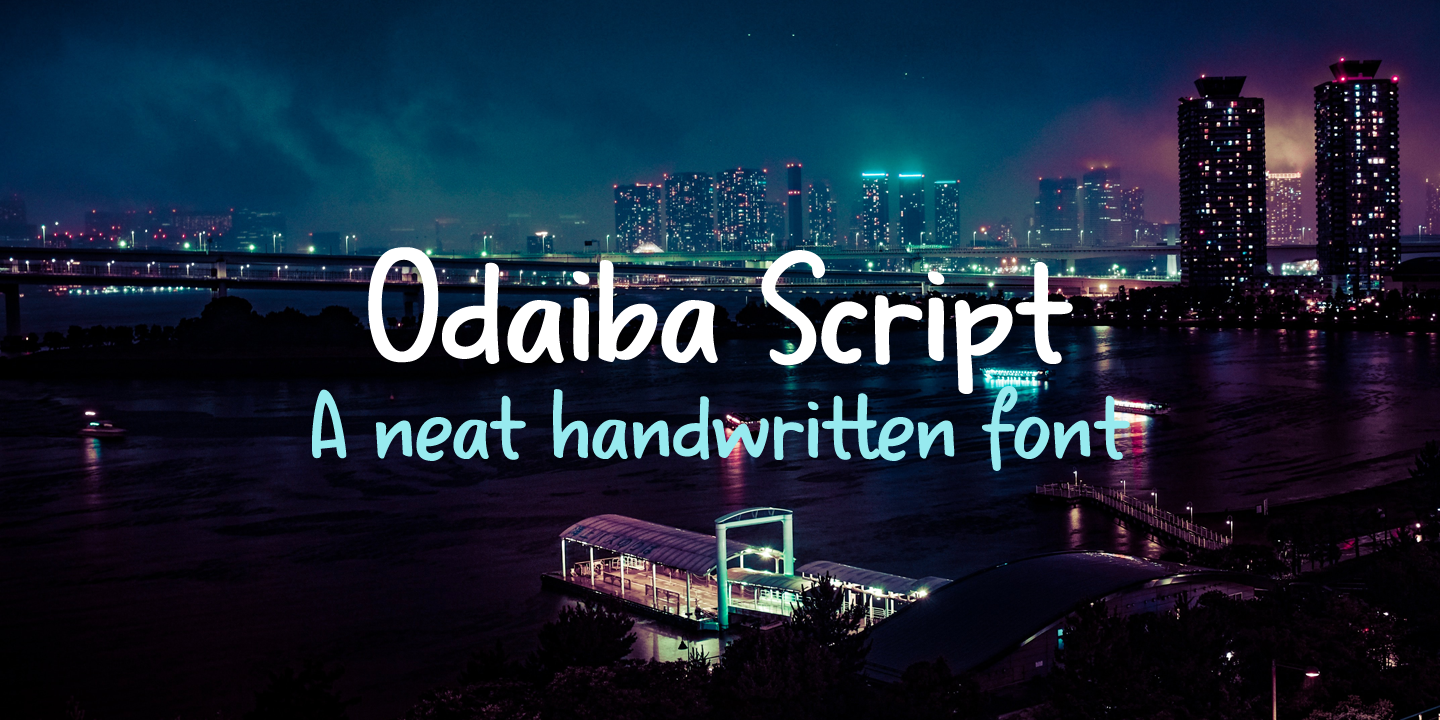
Odaiba Script Font is perfect for futuristic tech company branding, modern Japanese restaurant signage, cutting-edge urban development materials, contemporary Tokyo-inspired designs, sleek entertainment venue graphics, innovative digital platform interfaces, progressive architectural presentations, and sophisticated metropolitan event promotions. Its modern Japanese character makes it ideal for projects celebrating Tokyo's innovative urban sophistication.
What makes Odaiba Script Font exciting is its remarkable ability to capture the innovative spirit of Tokyo's futuristic districts through sleekly designed letterforms that embody the perfect fusion of traditional Japanese aesthetics and cutting-edge modernity. The contemporary construction features flowing elements with technological precision that reflects the dynamic energy of urban innovation. This typeface embodies metropolitan sophistication and technological advancement, making every design feel progressively modern and authentically Tokyo-inspired.
Odaiba Script Font family includes Regular, Bold, Light, Italic, Neon, and Digital variations, providing designers with comprehensive tools for creating compelling Tokyo-inspired typographic compositions that celebrate urban innovation.
Experience metropolitan innovation with the futuristic elegance of Odaiba Script Font Free Download. This cutting-edge typeface brings Tokyo's technological sophistication to any creative project, whether you're developing brand identities for tech companies, crafting promotional materials for urban developments, or designing graphics for modern entertainment venues. The font's Tokyo-inspired architecture and metropolitan presence make it essential for projects requiring innovative appeal. Odaiba Script Font perfectly captures the essence of urban Japanese sophistication while ensuring excellent readability across all modern applications. Its progressive character forms and Tokyo-inspired design language make it ideal for brands seeking to communicate innovation and metropolitan style, delivering memorable results that resonate with audiences who appreciate cutting-edge technology, urban sophistication, and the dynamic energy of Tokyo's futuristic districts where tradition meets tomorrow.